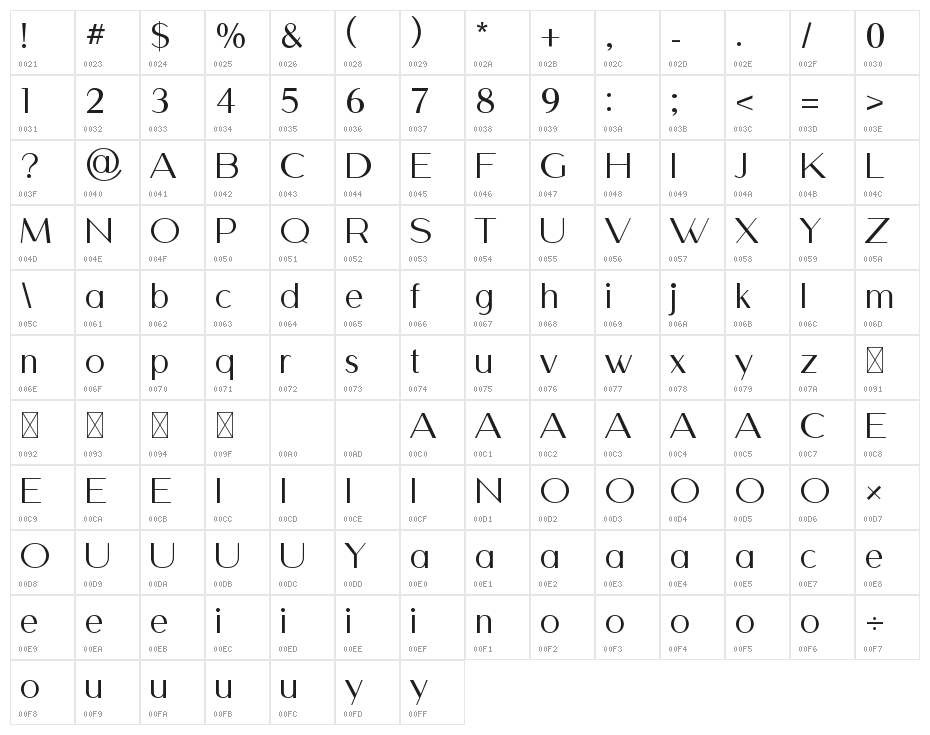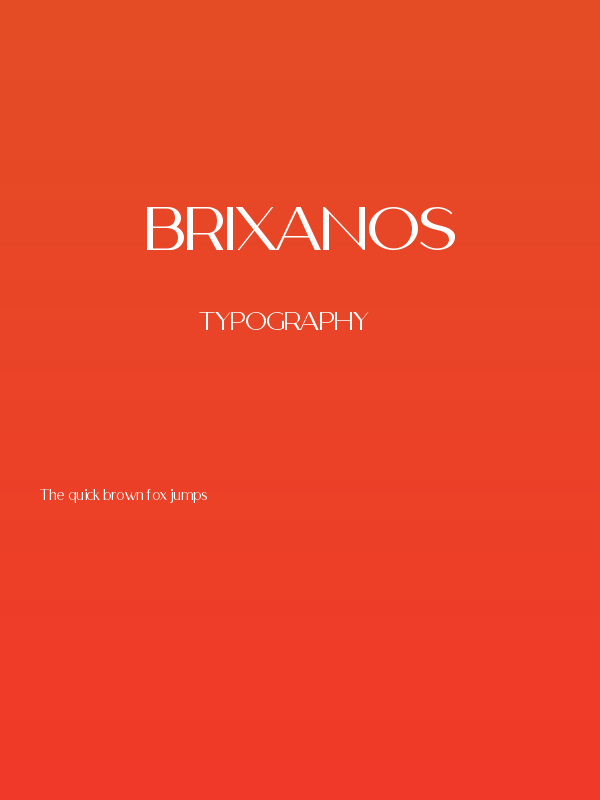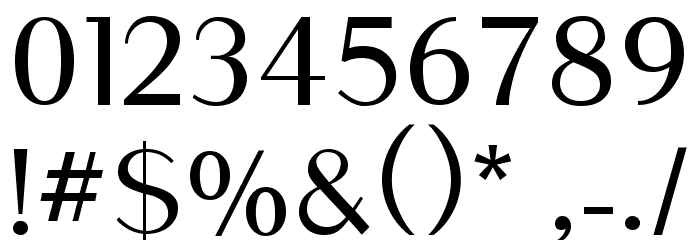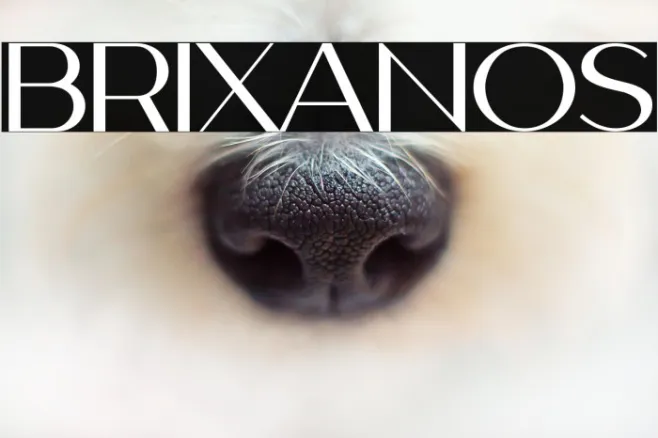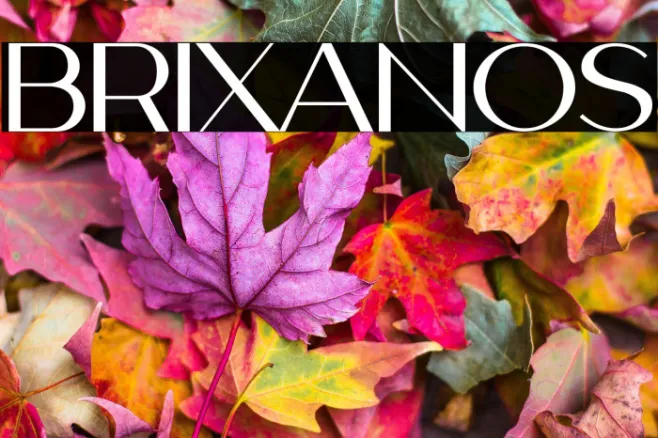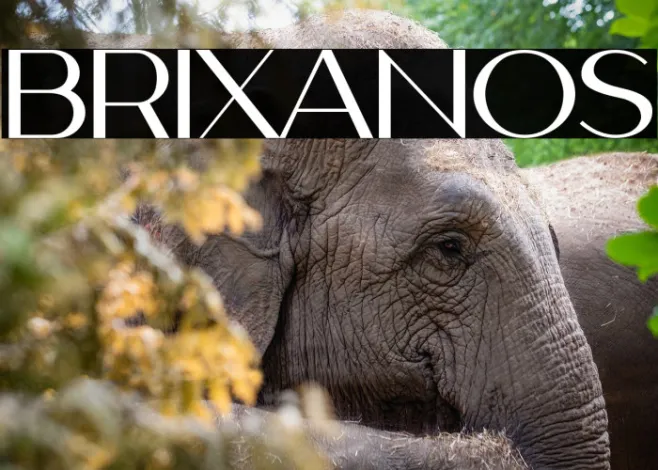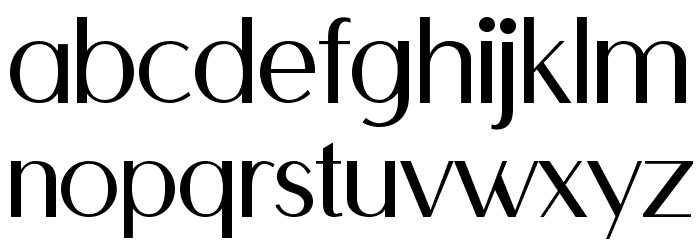
BRIXANOS Font
BRIXANOS Description
This font features a modern and sleek sans-serif design, characterized by clean lines and a geometric structure. The uppercase letters are bold and impactful, while the lowercase letters maintain a consistent and harmonious flow. The numerals are clear and easy to read, making them suitable for various applications. Special characters are well-defined, adding versatility to the font. The overall appearance is contemporary and professional, making it ideal for both digital and print media.